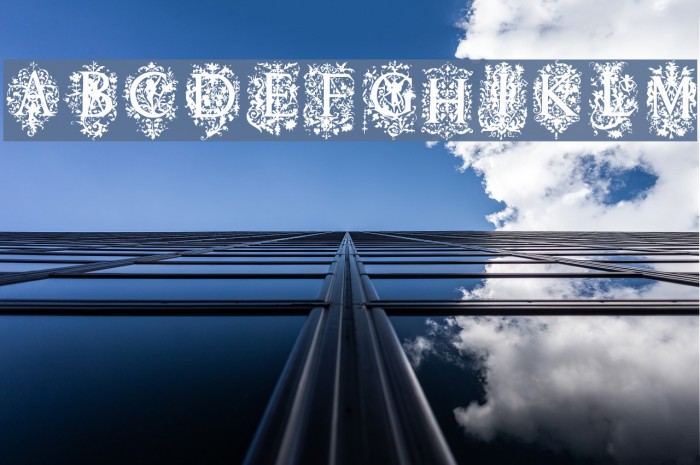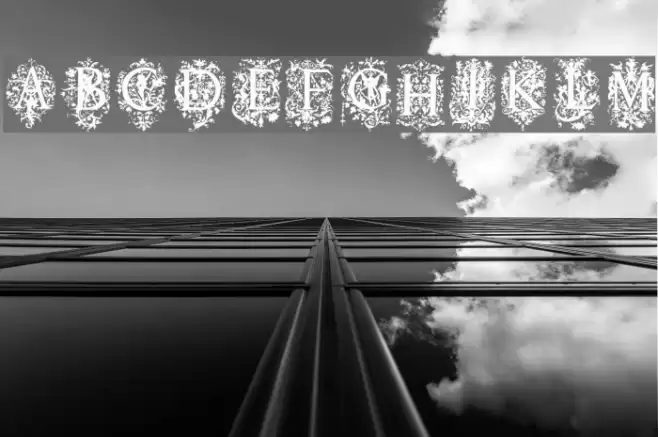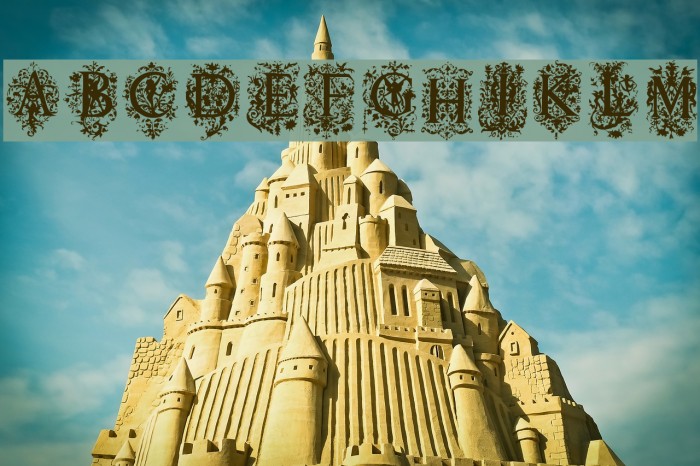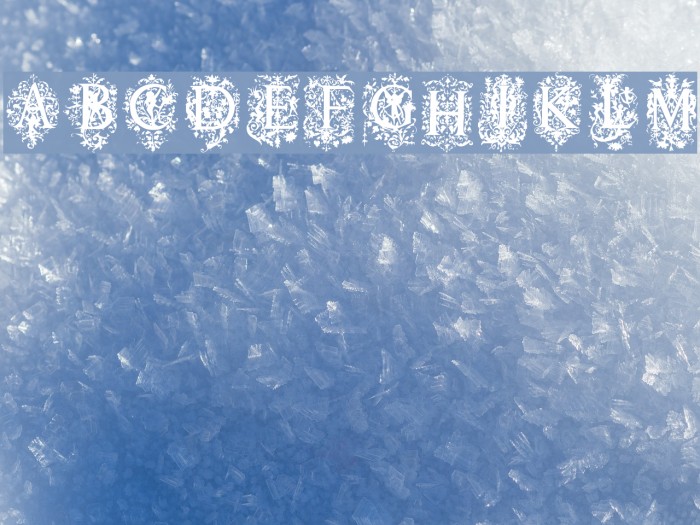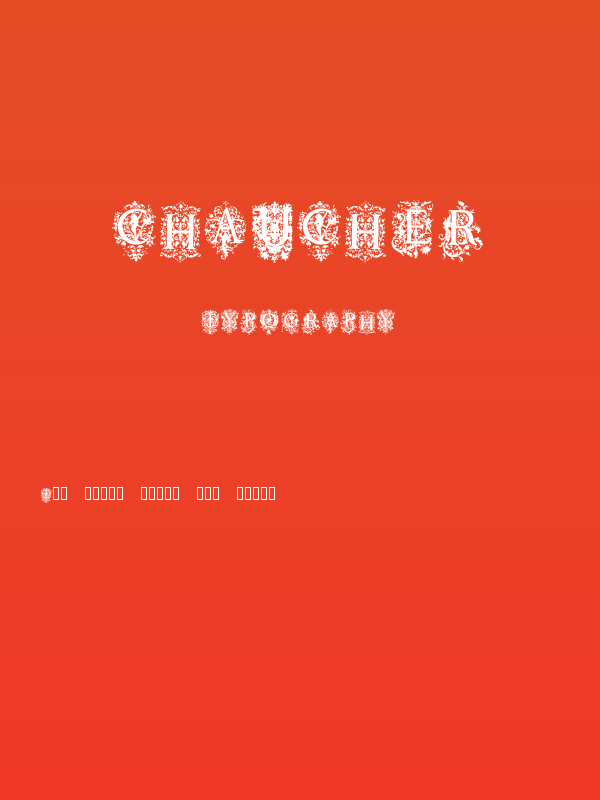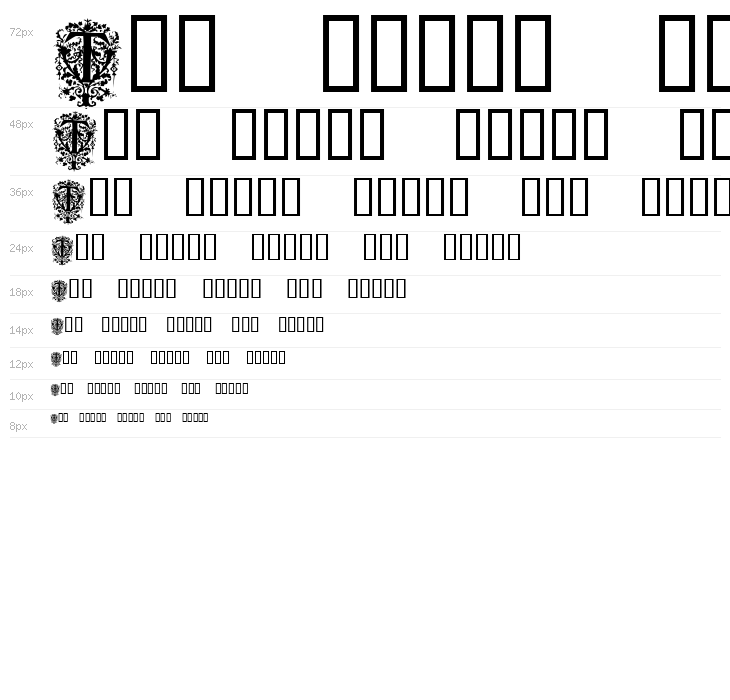
Chaucher Font
Chaucher Description
This font is a highly decorative and ornate typeface, characterized by intricate floral and vine-like embellishments surrounding each letter. The uppercase letters are designed with elaborate details that give them a vintage and classical appearance, reminiscent of medieval manuscripts or antique book covers. The embellishments are consistent across all characters, providing a cohesive and unified look. The font's artistic style makes it suitable for projects that require a touch of elegance and historical charm.
| Proposed Projects | Ideal for wedding invitations, historical themed projects, book covers, and decorative posters. |